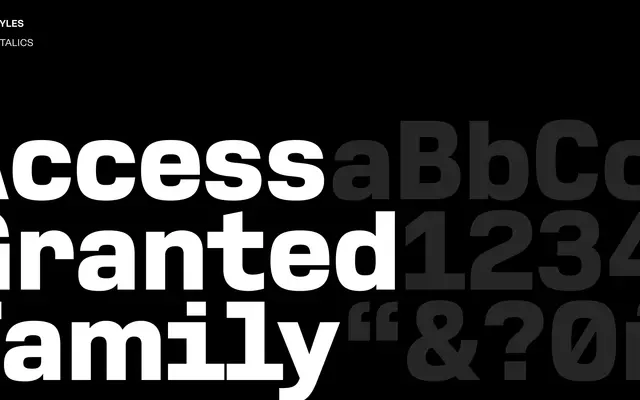
Access Granted specimen from Playtype
A display typeface from Playtype with an editorial character suited to headline and campaign use.
The page offers little technical detail, but the tone and framing point to a typeface built for expressive headline settings. Playtype positions it through a brief narrative fragment, suggesting a personality-led design aimed at editorial and campaign contexts. Without weight or glyph data available, its full scope remains unclear.
The page copy is too sparse to confirm precise classification, but the name and editorial framing suggest a display-oriented sans used for expressive headline work.